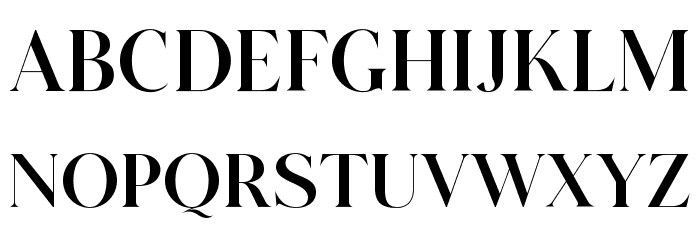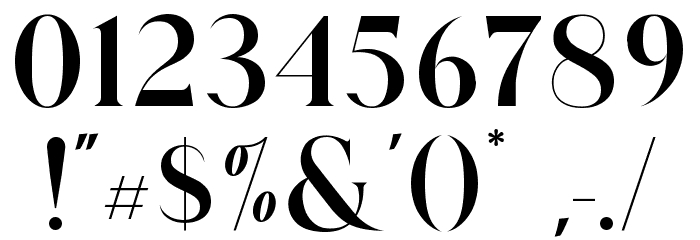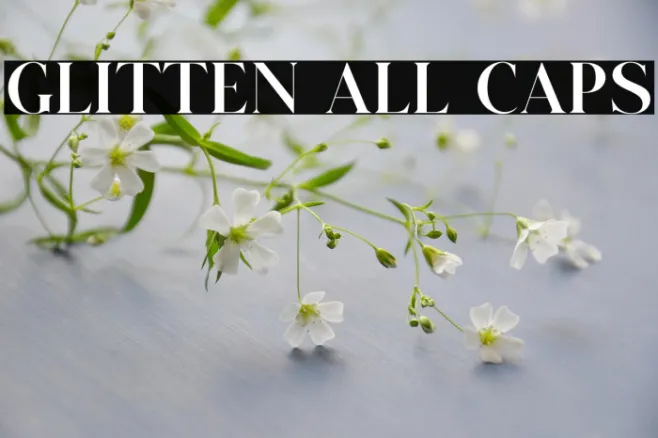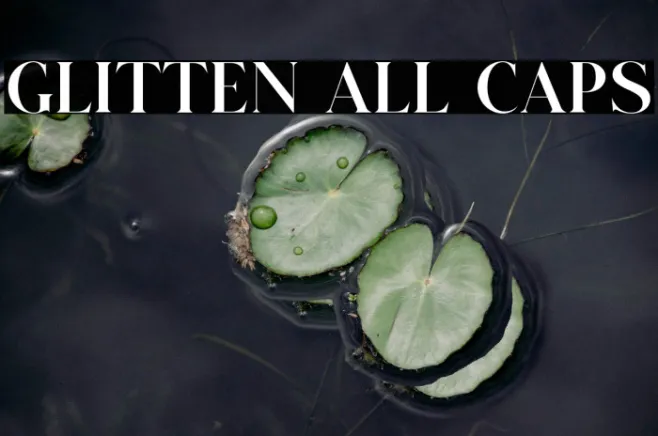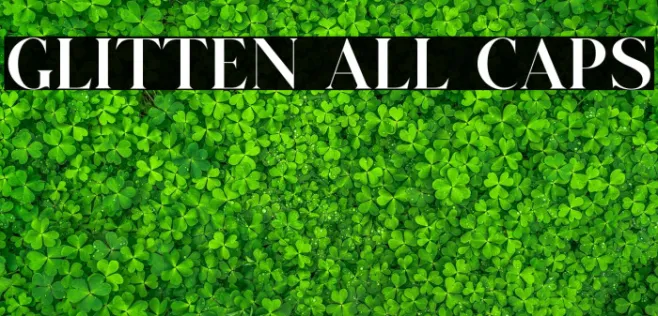
GLITTEN ALL CAPS Font
This font features a sophisticated and elegant design, characterized by its high contrast between thick and thin strokes. The serifs are sharp and pronounced, giving it a classic yet modern appeal. The uppercase letters are bold and commanding, while the numerals and special characters maintain a consistent style that complements the overall aesthetic. The font's clean lines and refined details make it suitable for a variety of applications where a touch of elegance is desired.
A high-contrast serif font with elegant, sharp serifs and a modern classic appeal.
- Proposed Projects: Ideal for luxury branding, editorial design, wedding invitations, and high-end product packaging.
- Category: Serif
- Overall Style: Modern Classic
- Use Case: Headlines, Logos, Editorial Design